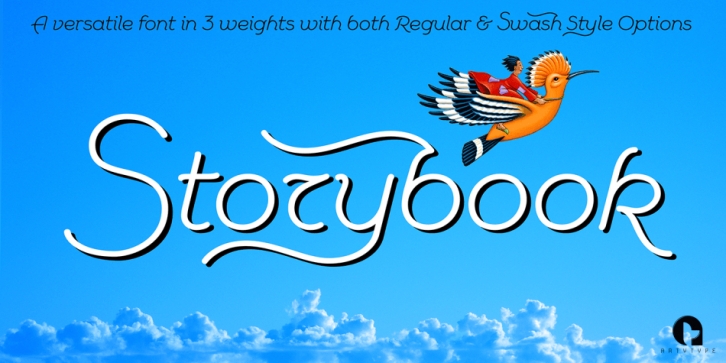
Storybook is a hand drawn font family. This typeface has three styles and was published by ArtyType.
Storybook is a friendly informal script with rounded features and a generous x-height for enhanced legibility. This distinctive italic typeface comes in three weights and bridges the gap between traditional scripts and contemporary hand-written styling; it adapts to a nostalgic or classic purpose whilst retaining a modern feel at the same time. The design lends itself to subject matters like childrens’ books, various literature projects and even speech bubbles in equal measure.
The Storybook glyph palette boasts an extended European character set and a well considered series of swash alternates which instantly transform the appearance of any texts when activated.
· Storybook Light
· Storybook Regular
· Storybook Bold